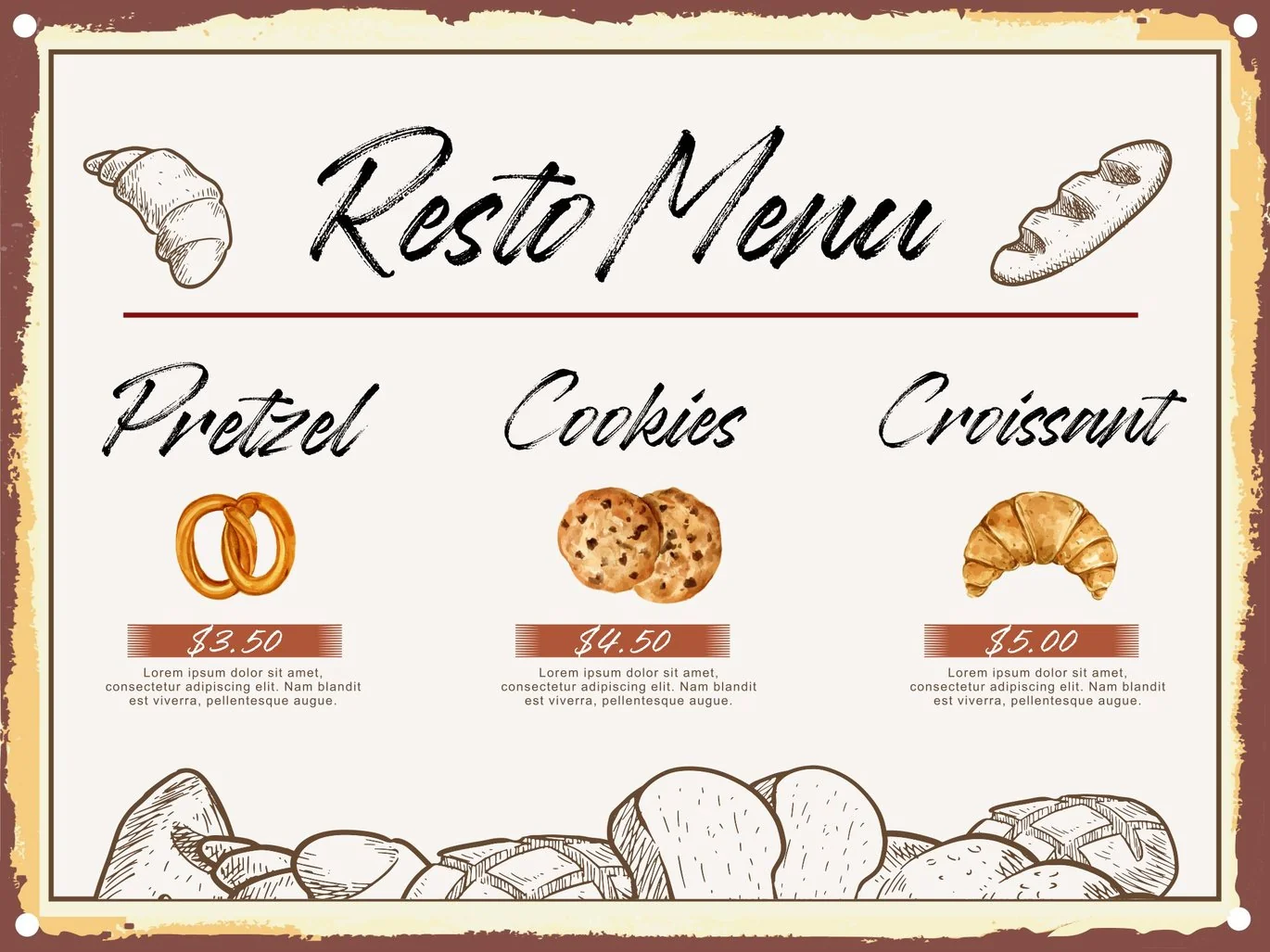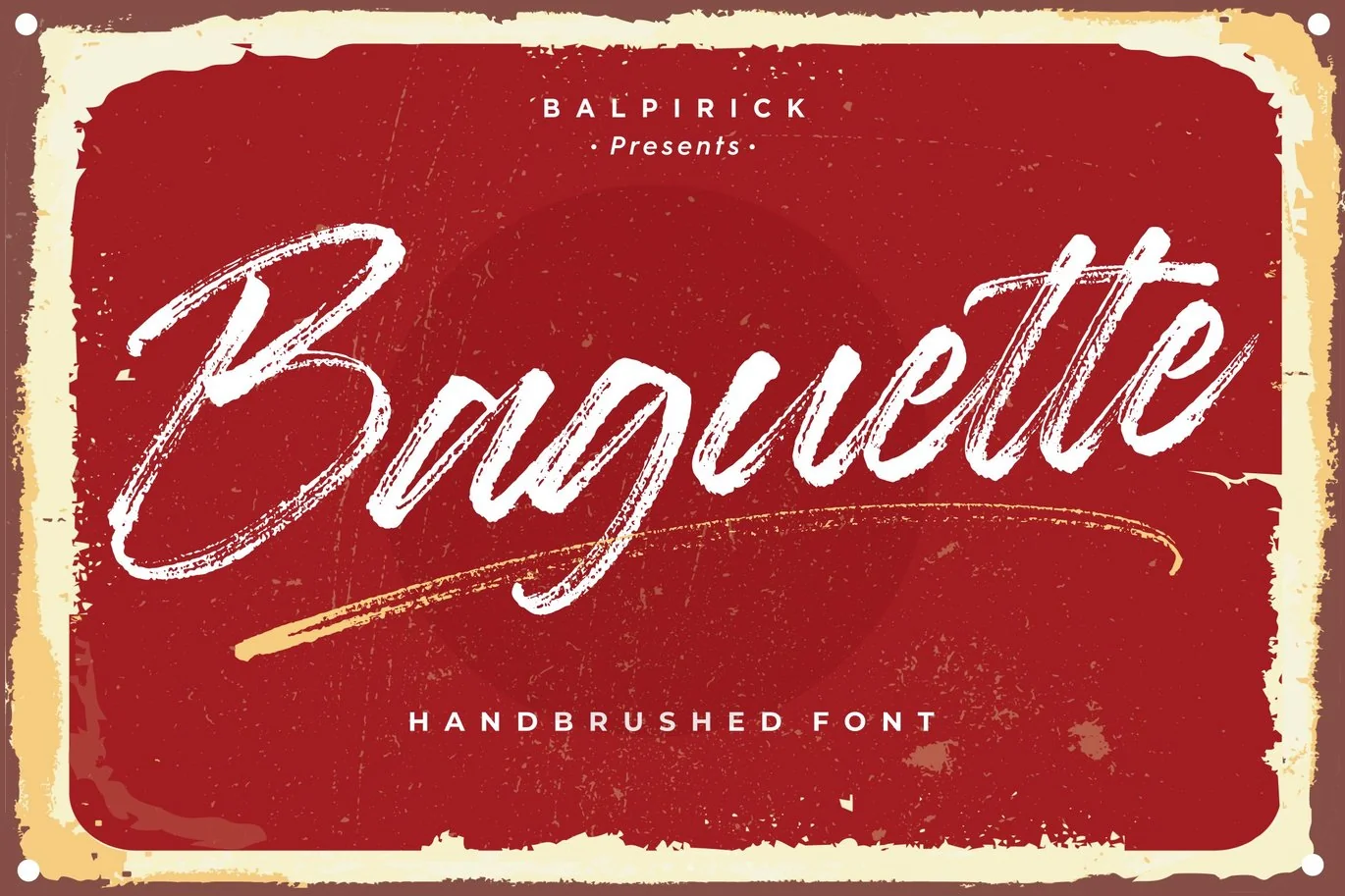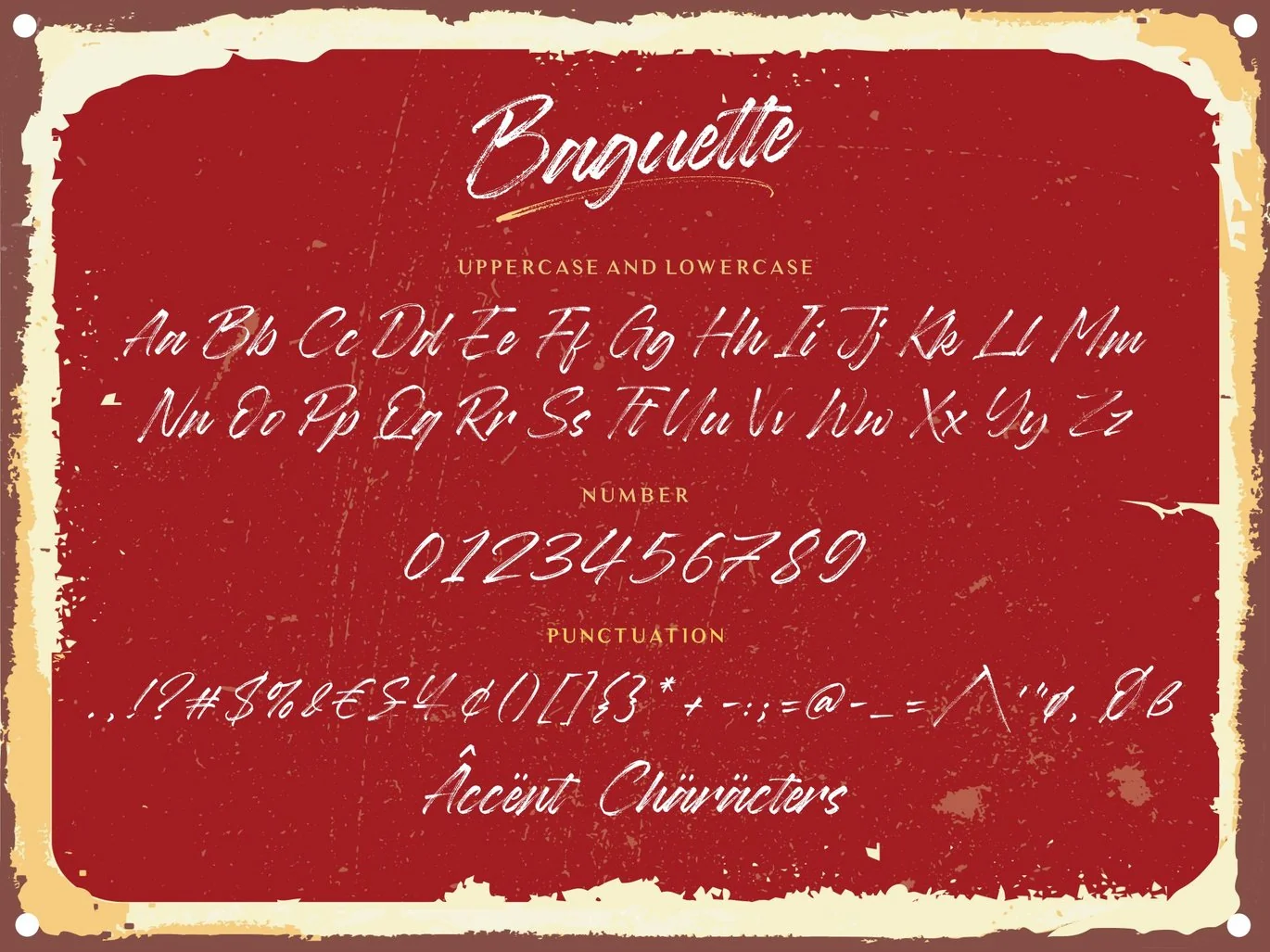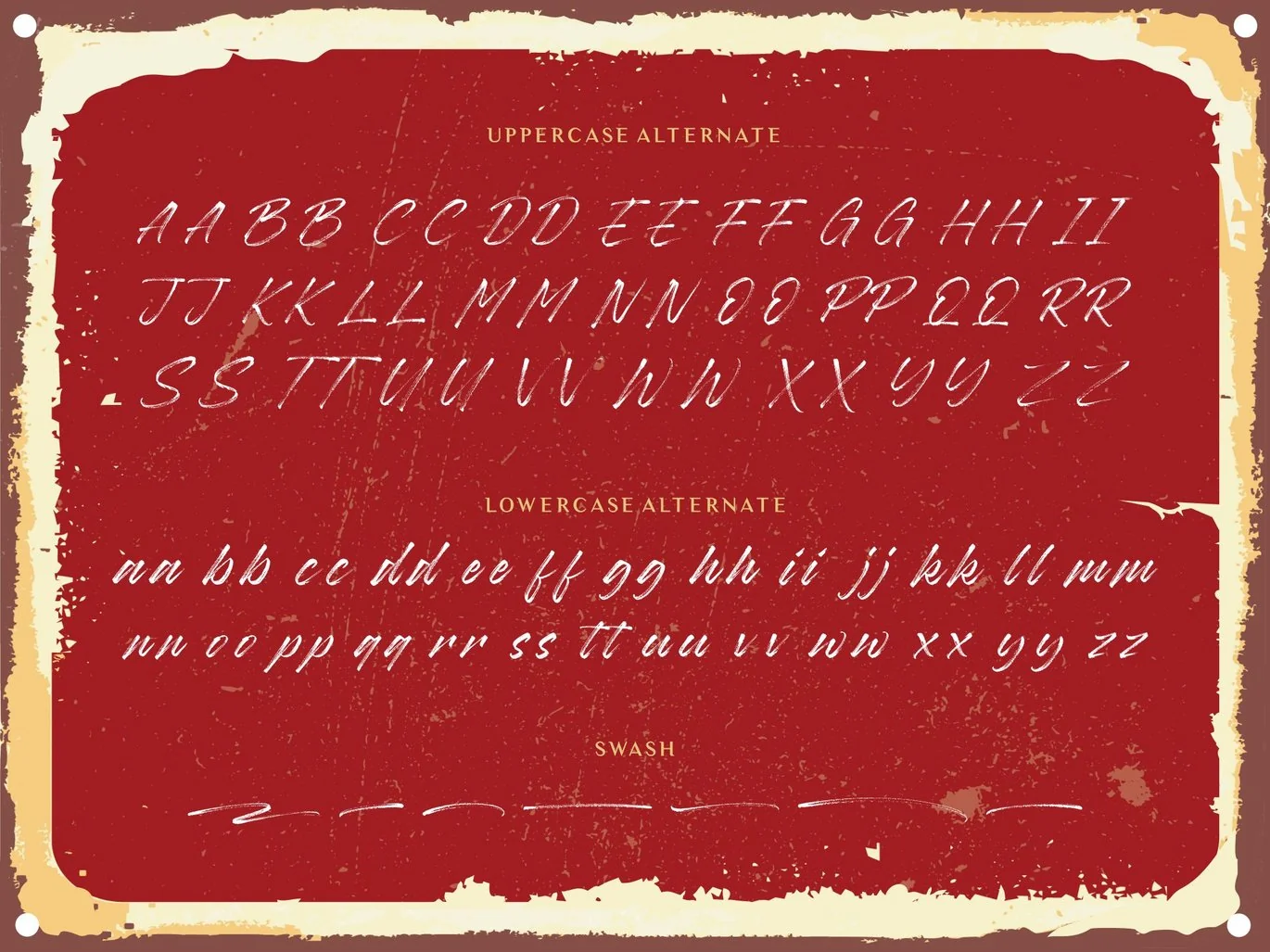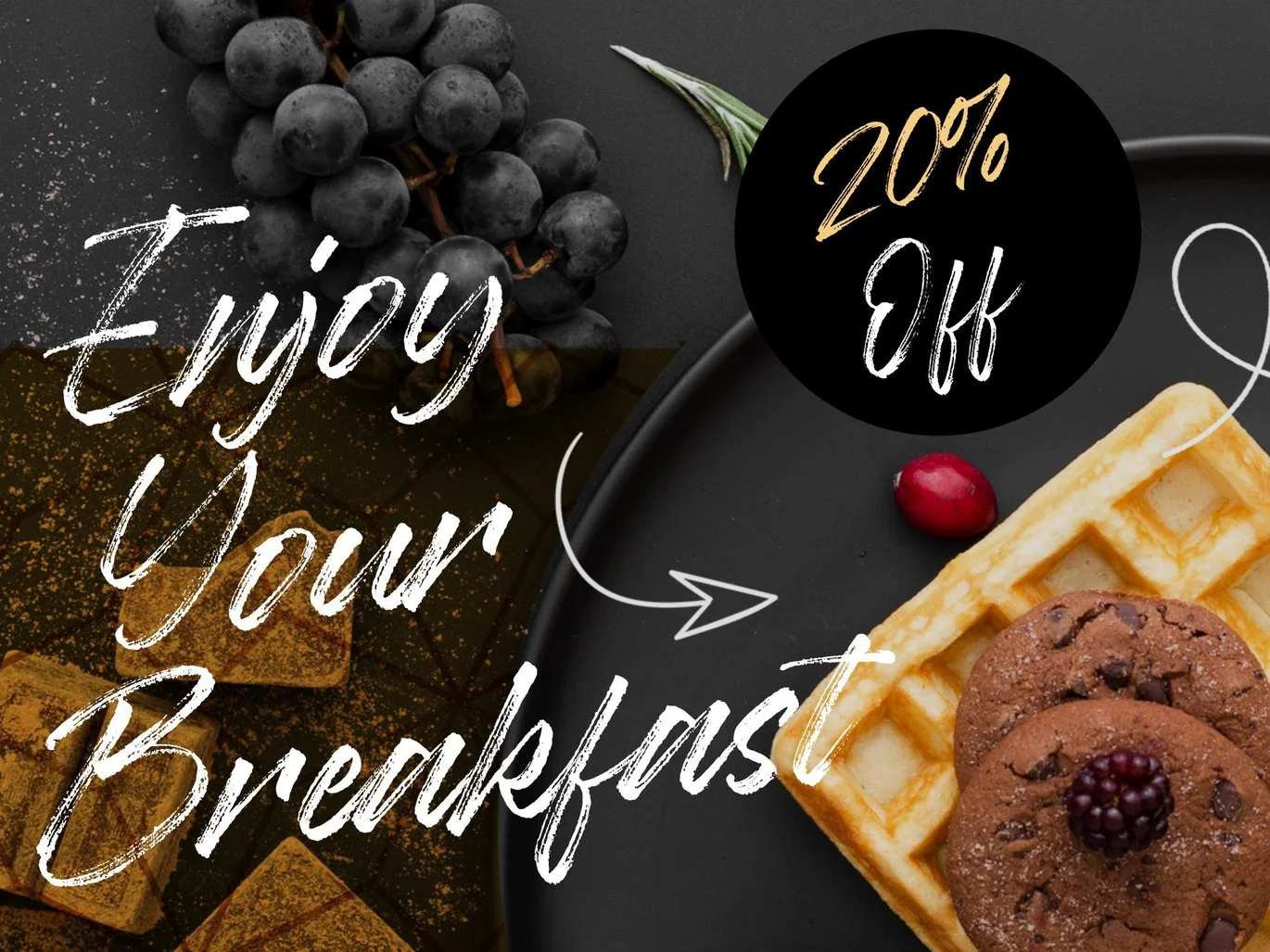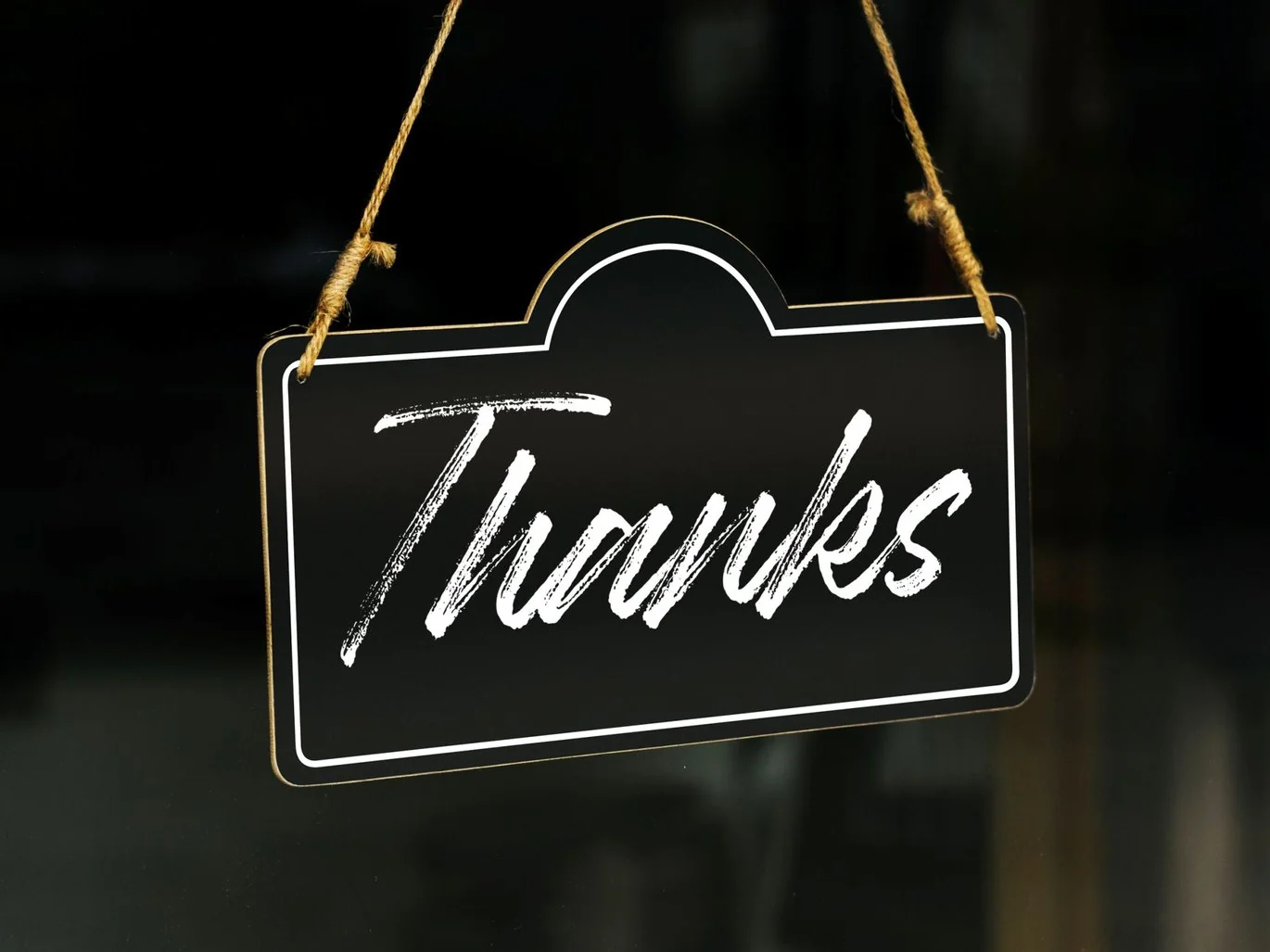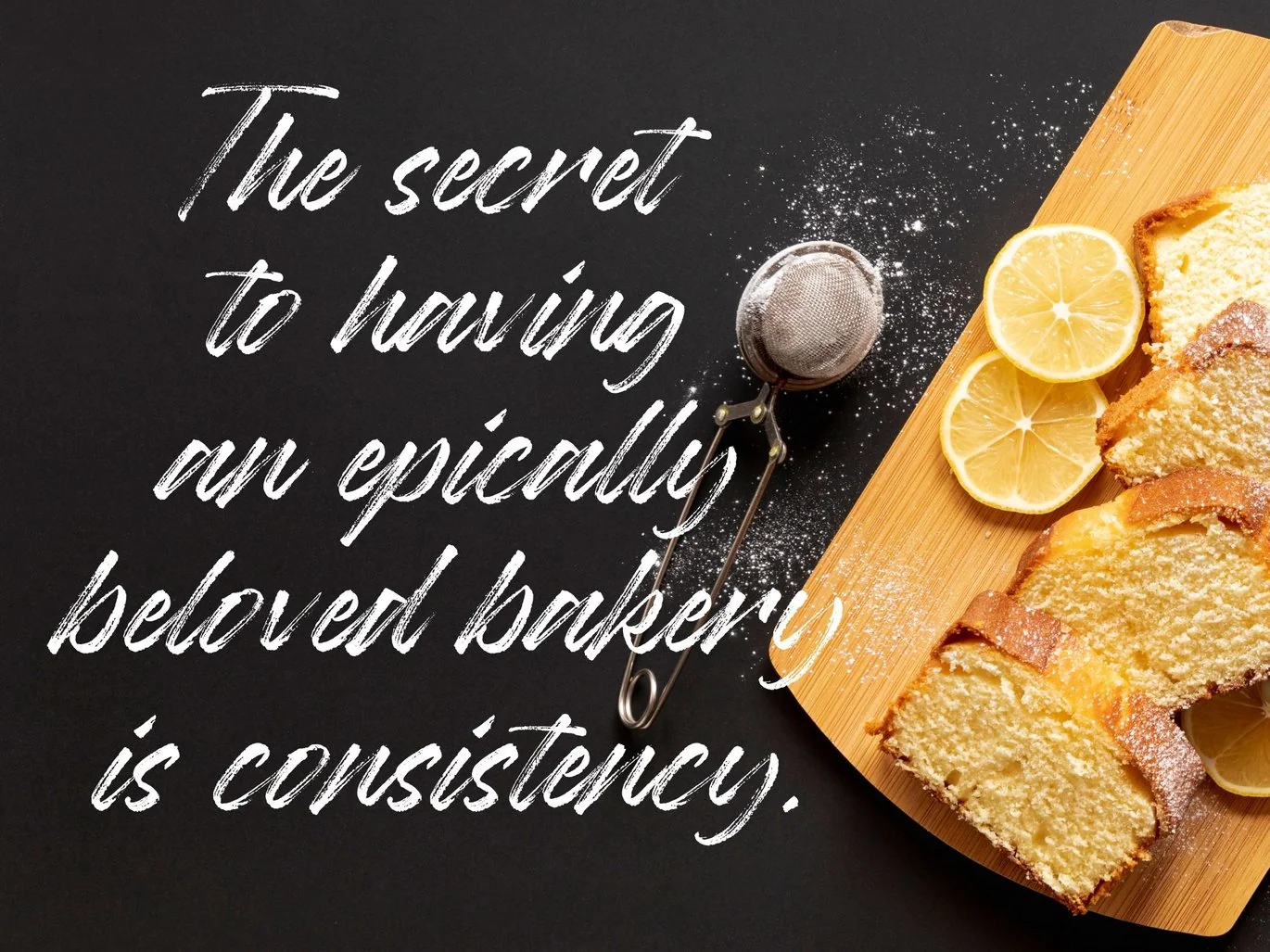
Baguette – Handbrushed Logo Font
Baguette is a Natural Handbrushed Font.
Baguette is perfect for product packaging,logo, invitation, stationery, branding project, label, photography, watermark, megazine, social media post, wedding, or just used to express words above the background.
Baguette is a font captures the charm of a rustic Parisian bakery. Perfect for café signs, bakery menus, or any design seeking a deliciously French, bread-inspired flair!.